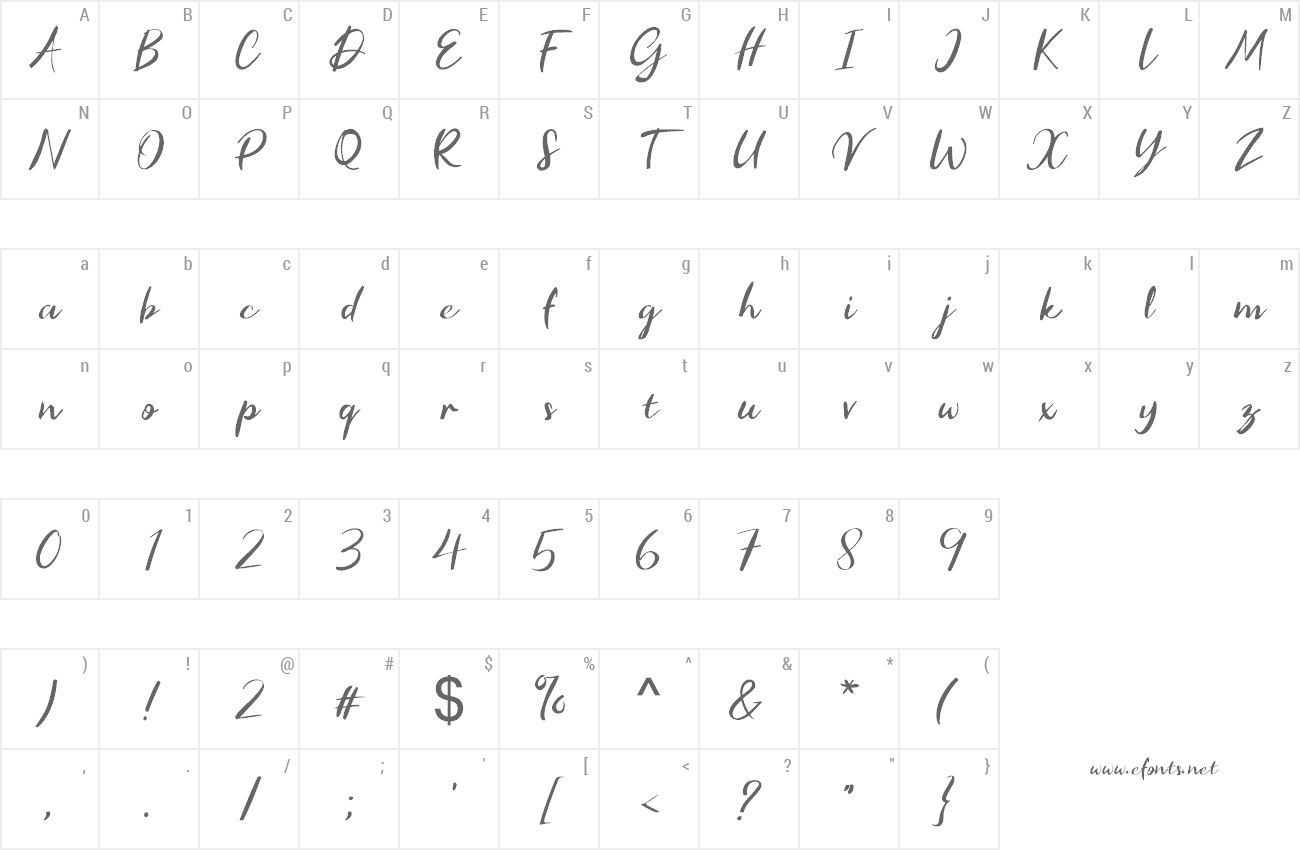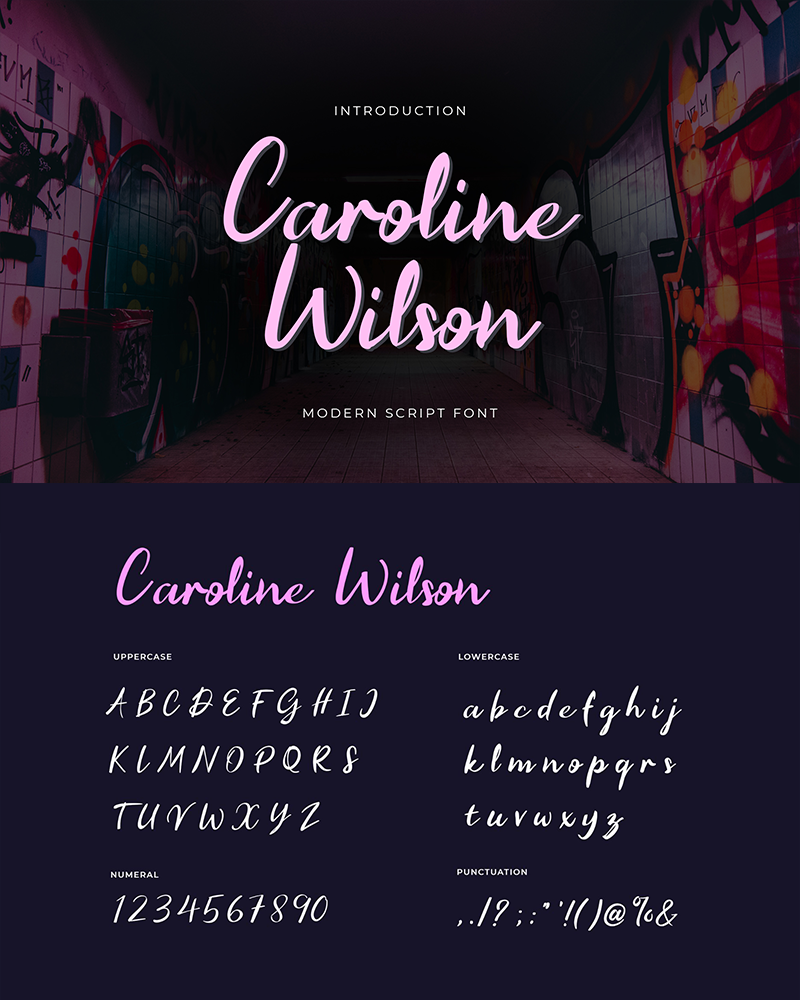
Caroline Wilson Script is fonts that have a signature and quasi font style which is a type of script font. This font also represents the characteristics of handwriting, which is a combination of basic fonts with different curves and shapes, so it will look natural and real. This font looked beautiful handmade brush font, with a bold weight perfect for adding some romance and charm to your designs. This script functions most strongly as a display or headline font. suitable for logo, logotype, branding, fashion, label, book cover, t-shirt, social media post, and others. You can buy full license from our store for more our fonts: https://uicreative.net/products/fonts-caroline-wilson-script |